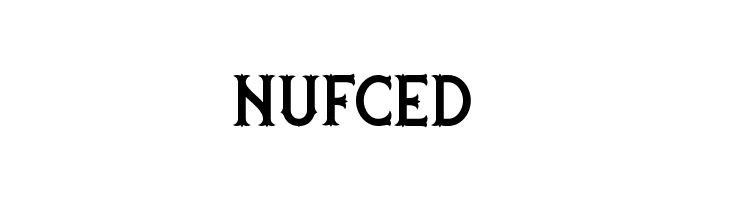
( Twicolabs Fontdation - Fahrizal Tawakkal - fontdation.com )
A bold, gothic-inspired font with sharp serifs and high contrast.
( Twicolabs Fontdation - Fahrizal Tawakkal - fontdation.com )
A bold, italic serif font with high contrast and decorative elements.
( Twicolabs Fontdation - Fahrizal Tawakkal - fontdation.com )
A bold, gothic-inspired font with sharp serifs and a dramatic style.
( Twicolabs Fontdation - Fahrizal Tawakkal - fontdation.com )
A bold, italic serif font with sharp, angular serifs and a dynamic style.
( Pixel Sagas - Neale and Shayna Davidson - www.pixelsagas.com )
A bold, geometric font with sharp, angular edges and a blocky appearance.
( Pixel Sagas - Neale and Shayna Davidson - www.pixelsagas.com )
A bold, decorative font with numbers and thematic symbols in square blocks.
( Pixel Sagas - Neale and Shayna Davidson - www.pixelsagas.com )
A bold, angular, and italicized font with a modern and edgy style.
A playful, bold font with thick, rounded strokes and a whimsical style.
A bold, vintage serif font with rounded edges and a nostalgic feel.